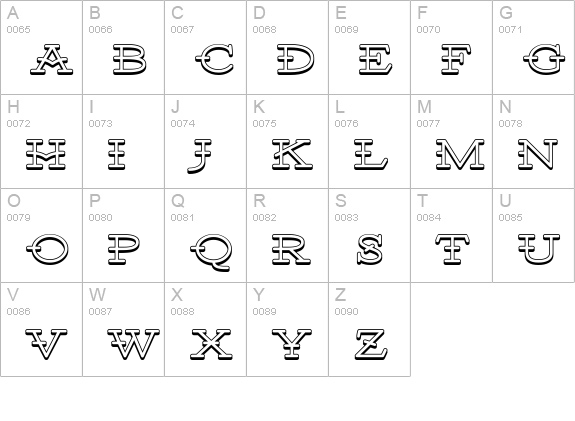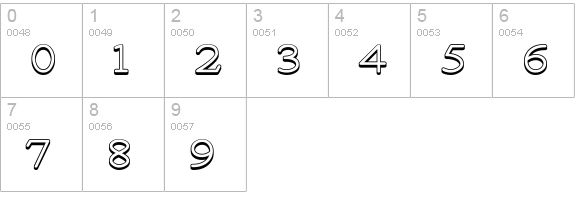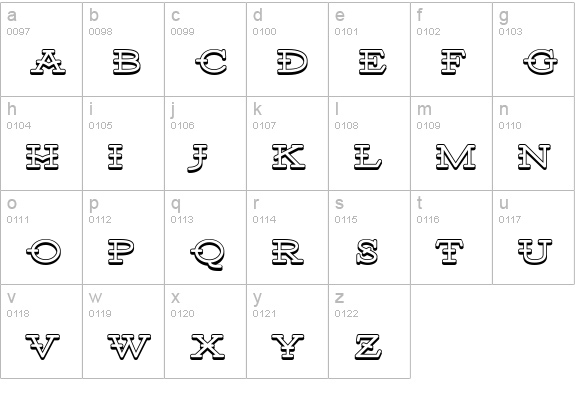
Introducing Santiago BTN Shadow font, a captivating typeface that exudes an air of mystery and intrigue. This unique font combines boldness with elegance, making it the perfect choice for projects that require a touch of sophistication. Santiago BTN Shadow font features stunning shadow effects that add depth and dimension to any design. Its intricate details and sharp edges give it a distinct and eye-catching appeal, making it a standout choice for headlines, logos, posters, and more. But what sets Santiago BTN Shadow font apart is not just its striking appearance, but also its availability. Yes, you read it right! Santiago BTN Shadow font is absolutely free to download at FontsMarket.com. This means that you can enhance your designs with this captivating font without spending a dime. Whether you are a professional designer, a student, or simply someone who appreciates beautiful typography, Santiago BTN Shadow font is a must-have in your font collection. Its versatility allows it to be used in a wide range of design projects, from branding and advertising to social media graphics and website designs. So why wait? Unleash your creativity and elevate your designs with the mesmerizing Santiago BTN Shadow font. Download it for free today at FontsMarket.com and let your imagination run wild.